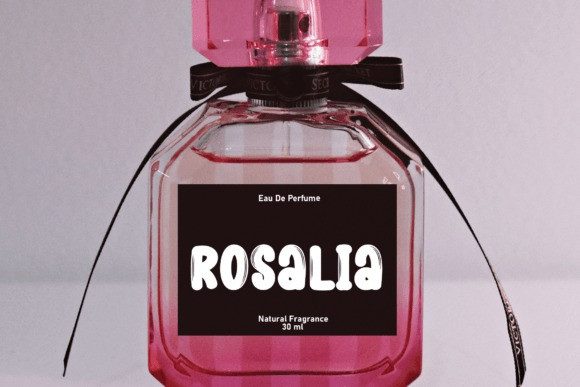
Present Christmas Display Font
Present Christmas Display Font is a fun and playful handmade font, full of bubbly shapes that give a cheerful and festive vibe. Perfect for creating joyful holiday designs!